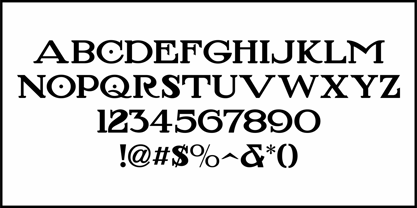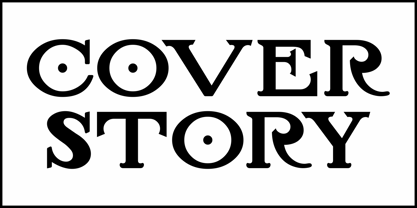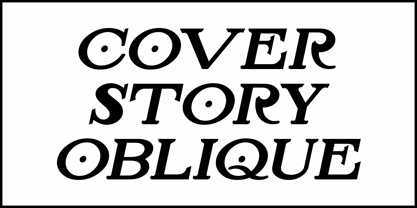
Cover Story JNL
by Jeff Levine
The title block for the cover of the July 5, 1913 issue of Moving Picture News was hand lettered in an ornate serif type design.
This is now available as Cover Story JNL, in both regular and oblique versions.